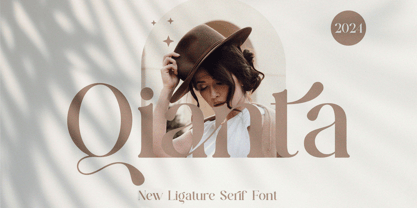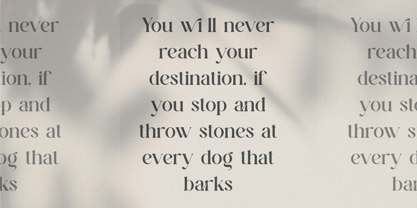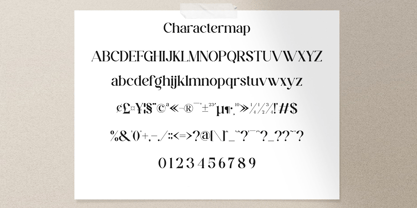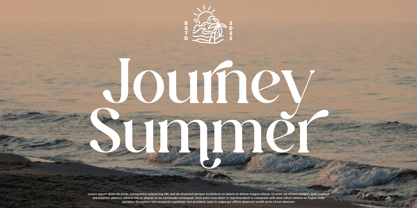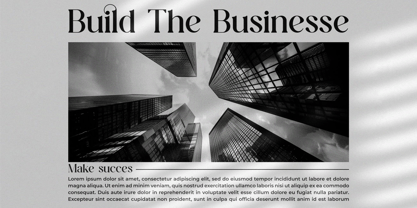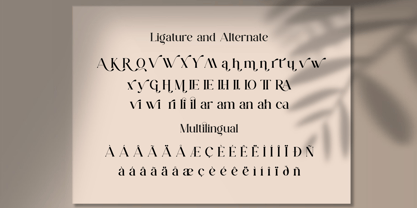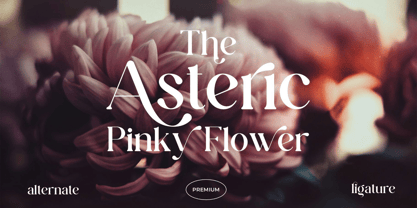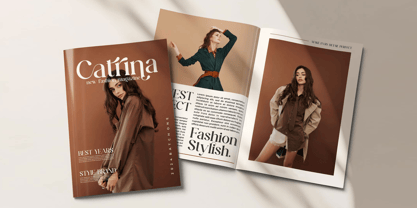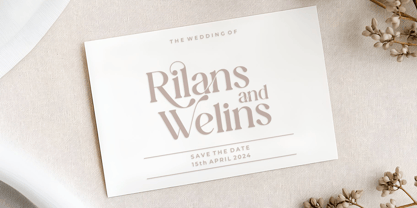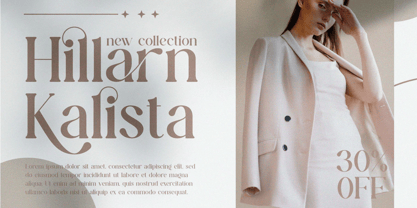
Qianta
The Qianta Font Family was designed by Ahmad Riqi and published by Slide Shoot. Qianta contains 1 styles. More about this family
Qianta is a balanced, smooth, elegant and stylish serif font. It has a beautiful character. It is perfect for combining with invitation card designs, company logos, movie titles, movie names, business cards, book titles, brand names and various other designs. Qianta Serif is a smooth serif font that exudes sophistication and elegance. Its stylish alterations and ligatures make this font a perfect partner for any project.